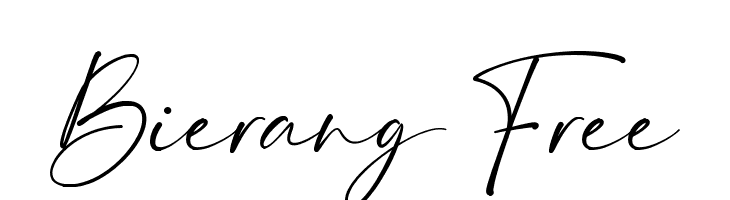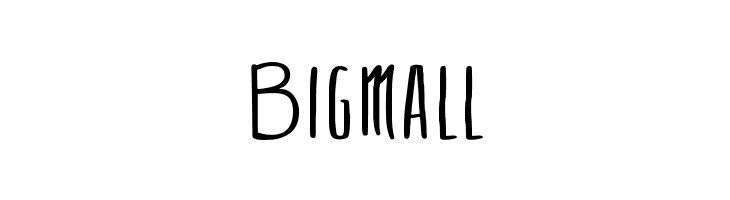
A modern, handwritten font with a casual, flowing style.
A bold, geometric font with a futuristic and industrial style.
A bold, cursive font with dynamic curves and a playful style.
A tall, narrow font with a playful and modern style.
A lively and expressive handwritten font with dynamic strokes and a playful style.
A graceful, cursive script font with fluid, connected letterforms.
A bold, rounded, and playful font with a hand-drawn look.
A playful, rounded font with consistent stroke thickness and a casual style.
A bold, angular font with a modern twist on traditional Japanese aesthetics.
A playful, narrow font with consistent strokes and charming details.